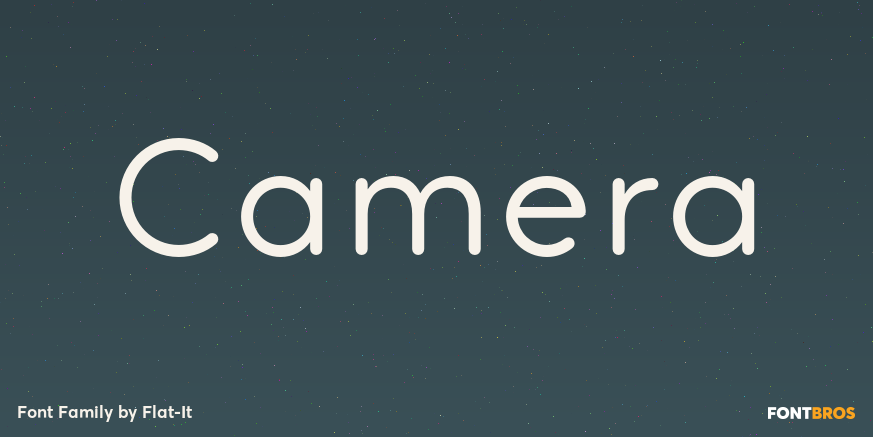
HomeFont BrosSans SerifCamera Sans Serif Camera FacebookXPinterestWhatsApp 1 of 1 About Camera Legible, simple and very lovely sans serif is based on artdeco advertisment from 1800s to early 20th. The sweetest sans for your retro-style project.  DOWNLOAD NOW People also explored Aventurine is a Monoline Handwritten Font Vast Desert Font Adney Royal Hamilton Font Milky Way Font Angelia Script Font Lonebold Font Astario Font Ansday Font 222 0 TagsCameraCamera Font Previous articleOliviar SansNext articleSilverliner LEAVE A REPLY Cancel reply Comment: Please enter your comment! Name:* Please enter your name here Email:* You have entered an incorrect email address! Please enter your email address here Website: Save my name, email, and website in this browser for the next time I comment. Personal Use Free Manhattan Personal Use Free Read more about this font Ryujin Attack Personal Use Free Read more about this font Caramel Latte Personal Use Free Read more about this font Hollow Personal Use Free Read more about this font BLOG Fonts That Capture the Spirit of New York City New York City is more than just a place—it’s an experience, a rhythm, a visual language... Where to Buy American Fonts Online in 2024 Using Fonts in Digital Marketing: Tips to Strengthen Your Brand Identity Free Fonts Risk: Why Free Fonts Can Be Dangerous for Designers